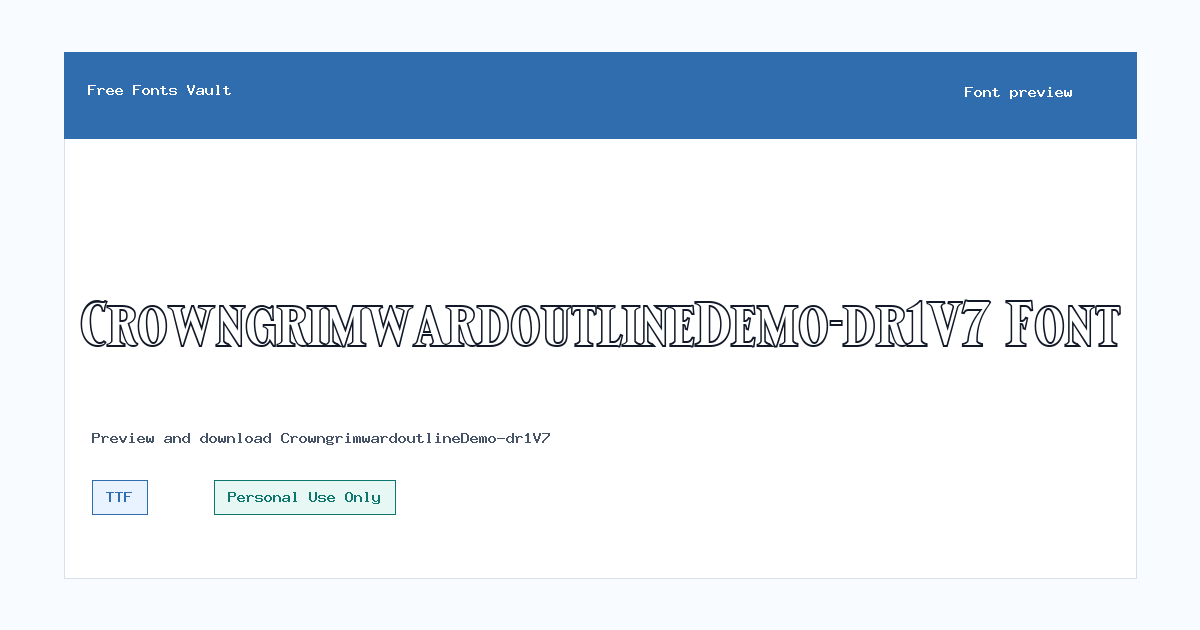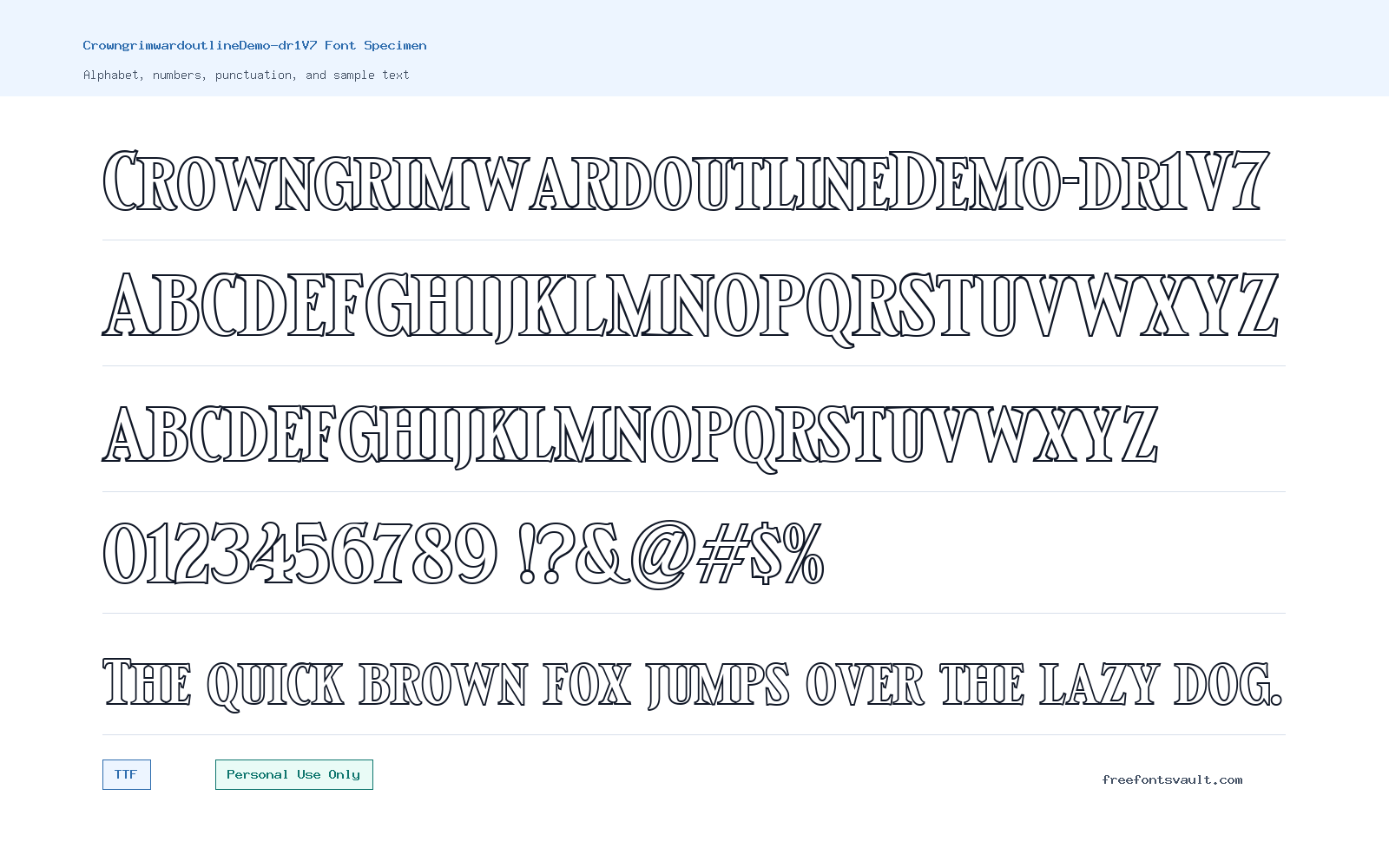
CrowngrimwardoutlineDemo-dr1V7
CrowngrimwardoutlineDemo-dr1V7 font preview showing the family name
CrowngrimwardoutlineDemo-dr1V7 Font
CrowngrimwardoutlineDemo-dr1V7 font specimen showing alphabet, numbers, and sample text
CrowngrimwardoutlineDemo-dr1V7 font.
CrowngrimwardoutlineDemo-dr1V7 is a demo font from Letterhend Studio with a display-focused outline style. It is best treated as a decorative font for short text, title experiments, posters, logo drafts, and visual mockups where the lettering needs to feel bold rather than quiet.
About CrowngrimwardoutlineDemo-dr1V7
CrowngrimwardoutlineDemo-dr1V7 appears to be an outline version connected to the Crown Grimward serif font name. The file name and license wording point toward a dramatic display face rather than a neutral reading font. That means it will usually work better in large sizes, where the outline shapes have enough room to show clearly. Try it in the preview with uppercase words, short names, one-line headings, or a compact phrase before using it in a layout.
• Outline display style suitable for large titles and short decorative text
• Best used where personality matters more than long-form readability
• Works well for previewing dramatic words, initials, badges, and poster-style headings
• Personal poster designs and title layouts
• Dark, fantasy, gothic, vintage, or ornamental mood boards
• Book cover mockups, album-art drafts, and event graphics
• Web mockups that need a bold display heading
• Testing headline contrast against simple body fonts
Use this font sparingly and at larger sizes. Outline fonts can lose clarity when set too small, placed over busy images, or used for long sentences. For best results, pair it with a simple sans serif or readable serif for body text, keep enough spacing around the headline, and test the preview on both light and dark backgrounds. If the design needs to become a real logo, packaging asset, website header, or product graphic, resolve the license first rather than waiting until the artwork is finished.
Who designed CrowngrimwardoutlineDemo-dr1V7?
The font is credited to Letterhend Studio.
What kind of projects suit this font?
It is most useful for short display text such as posters, cover mockups, title graphics, logo drafts, badges, and social visuals. It is not ideal for paragraphs or small interface text.
What should I pair it with?
Pair it with a plain sans serif or a clean readable serif. Let CrowngrimwardoutlineDemo-dr1V7 handle the headline, then use the simpler font for captions, descriptions, menus, or longer text.
Why does the font name include Demo?